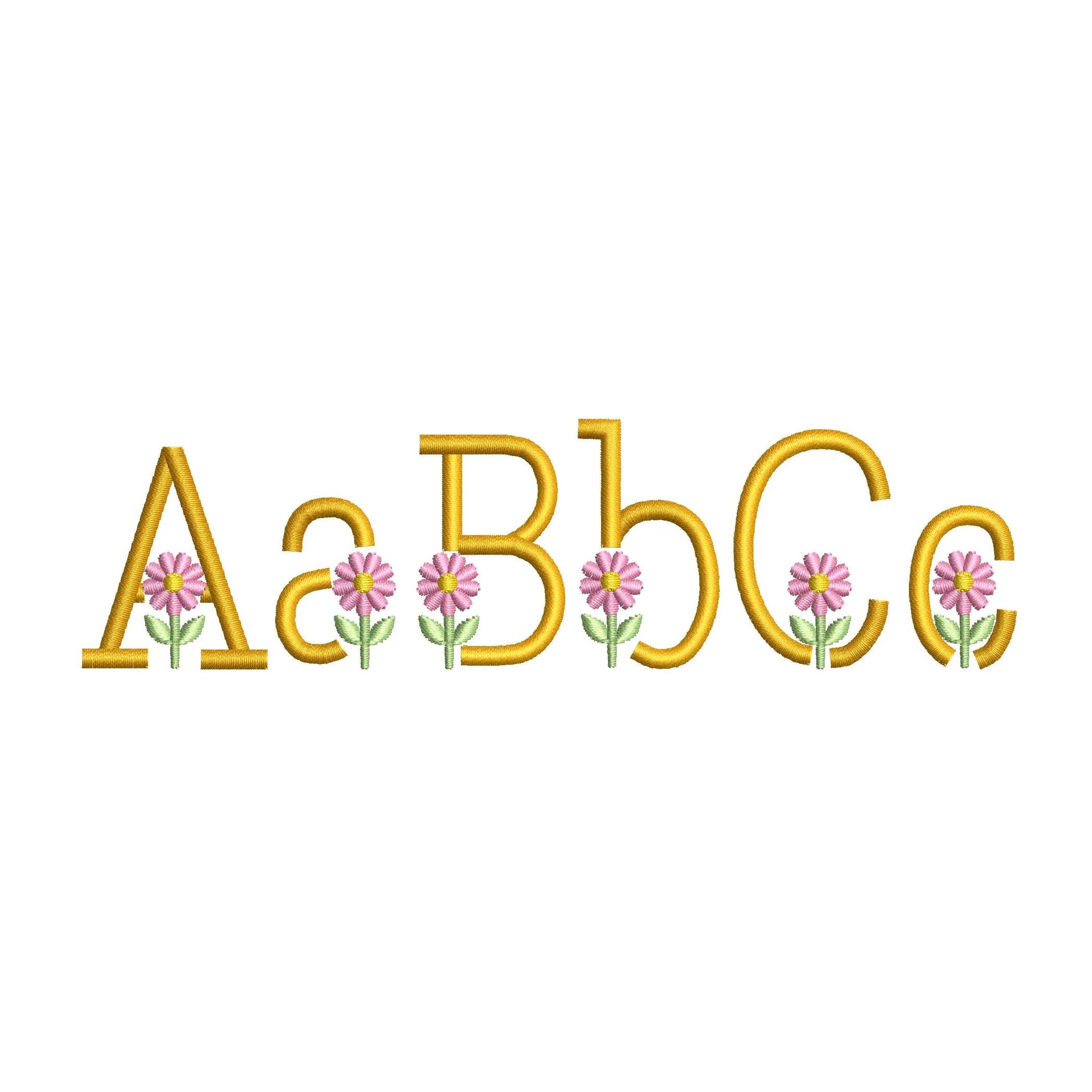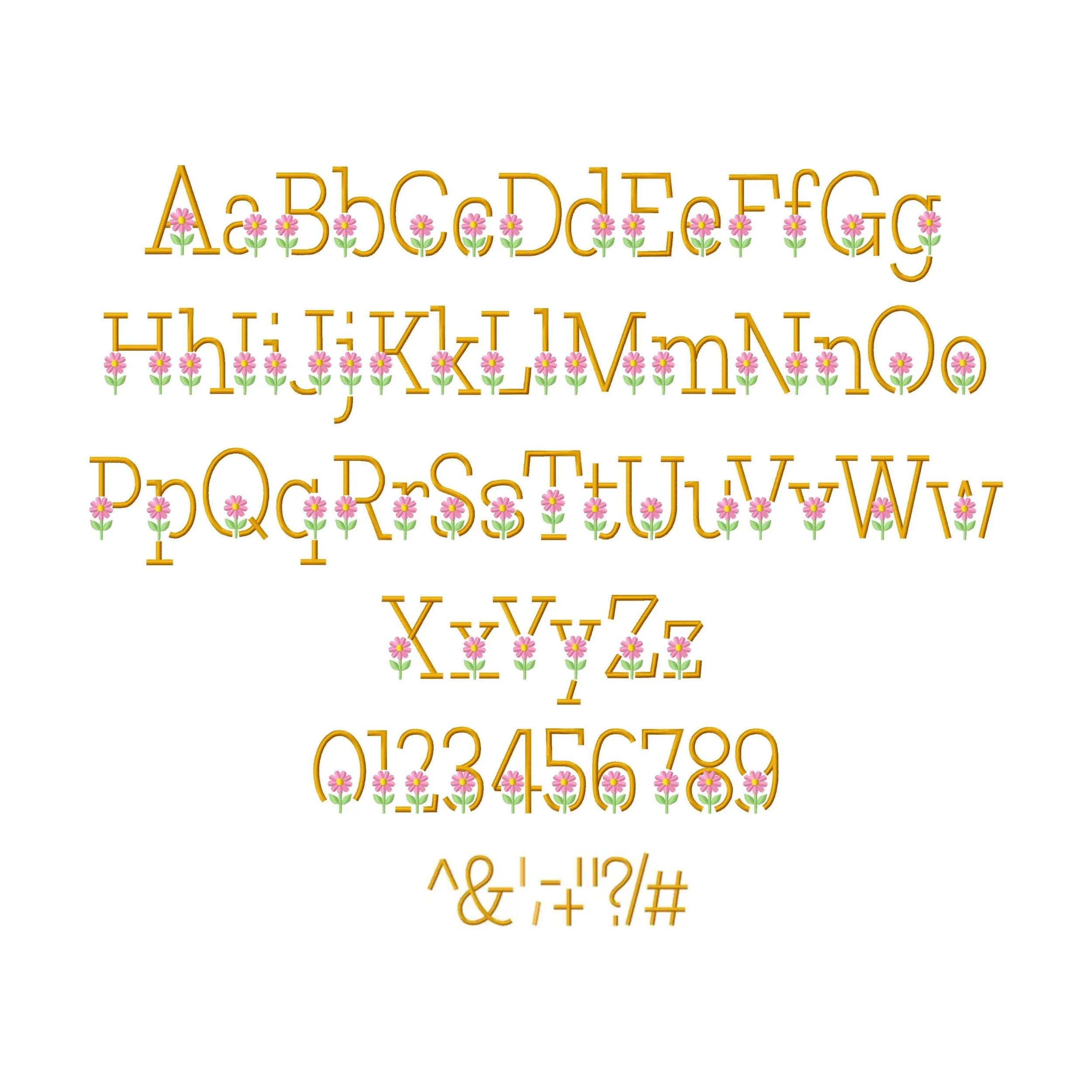
Satin stitch Spring Flower Font flowered alphabet letters numbers machine embroidery designs kids baby monogram sizes 1 up to 2.9 inch, BX
This is satin stitch font with Flower